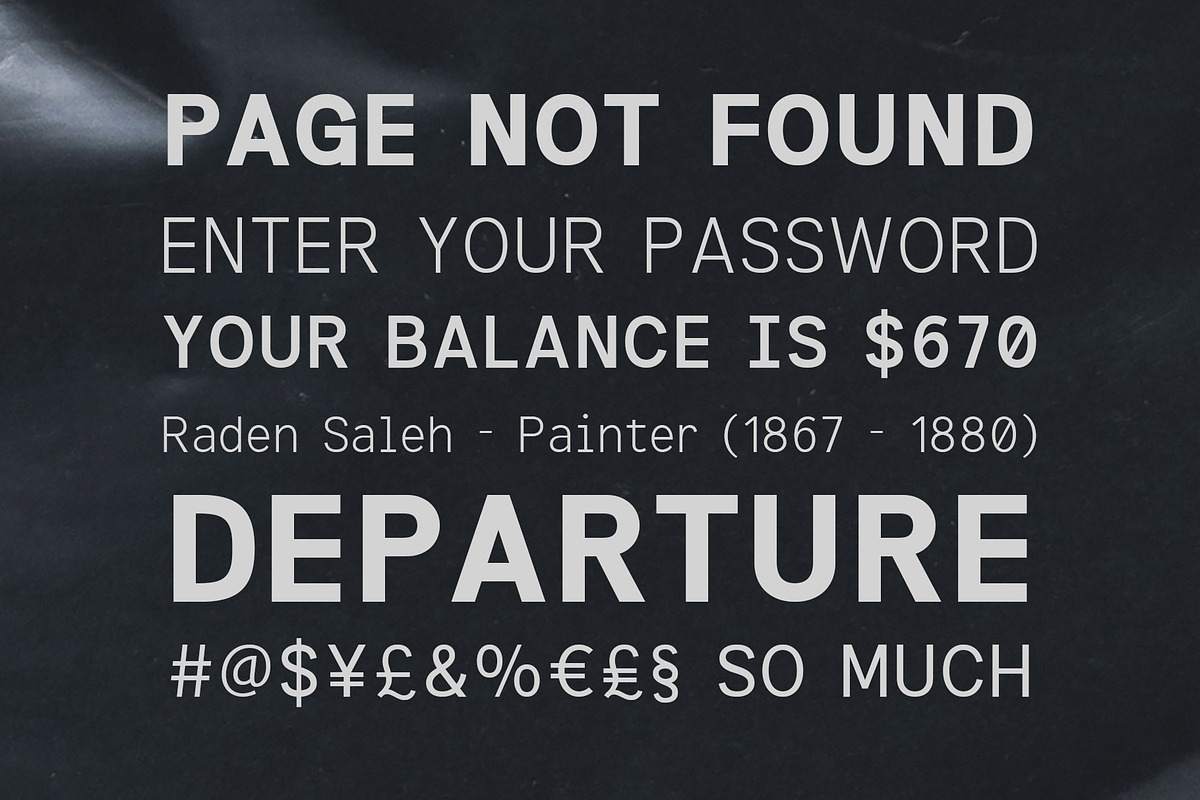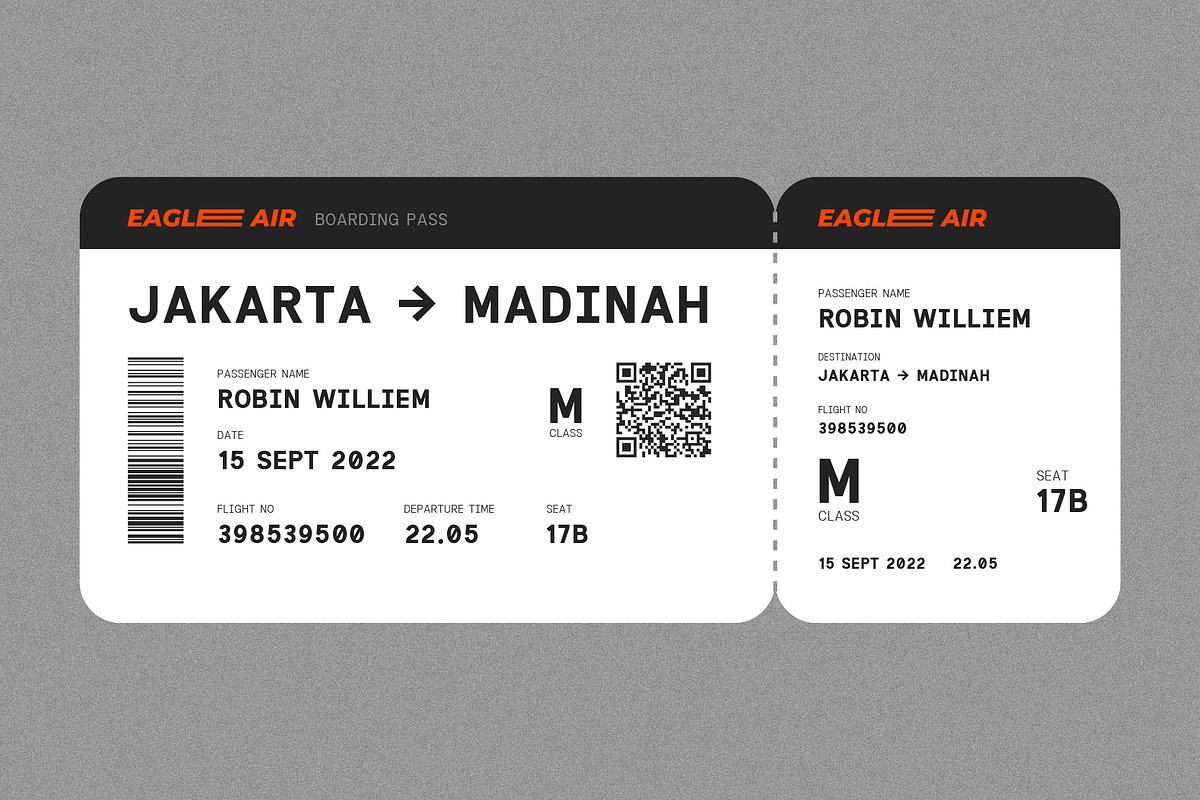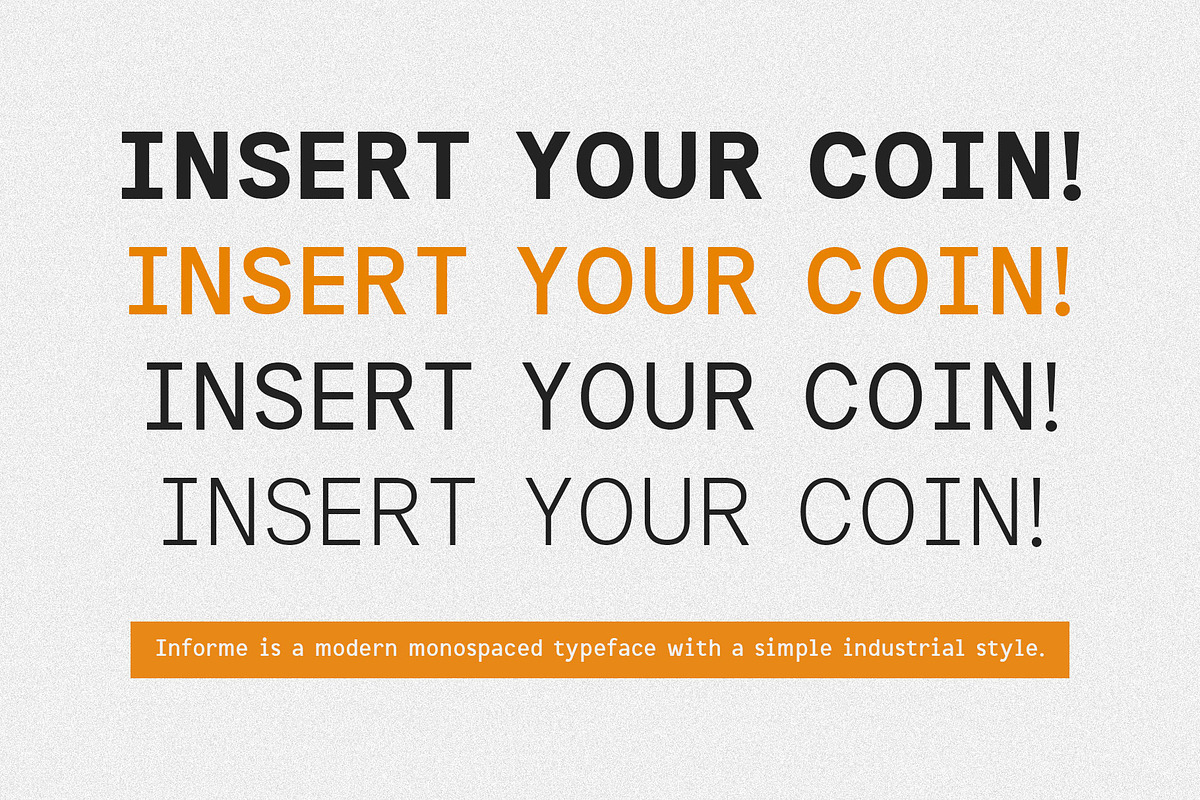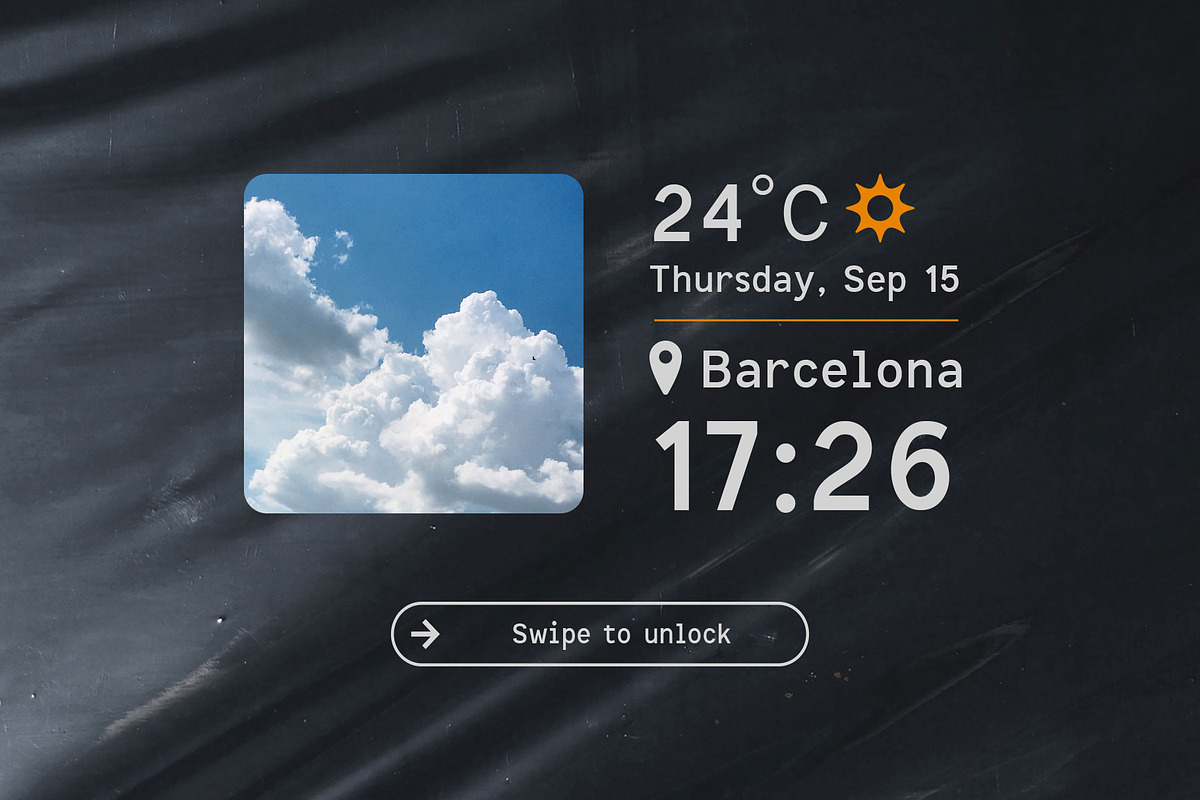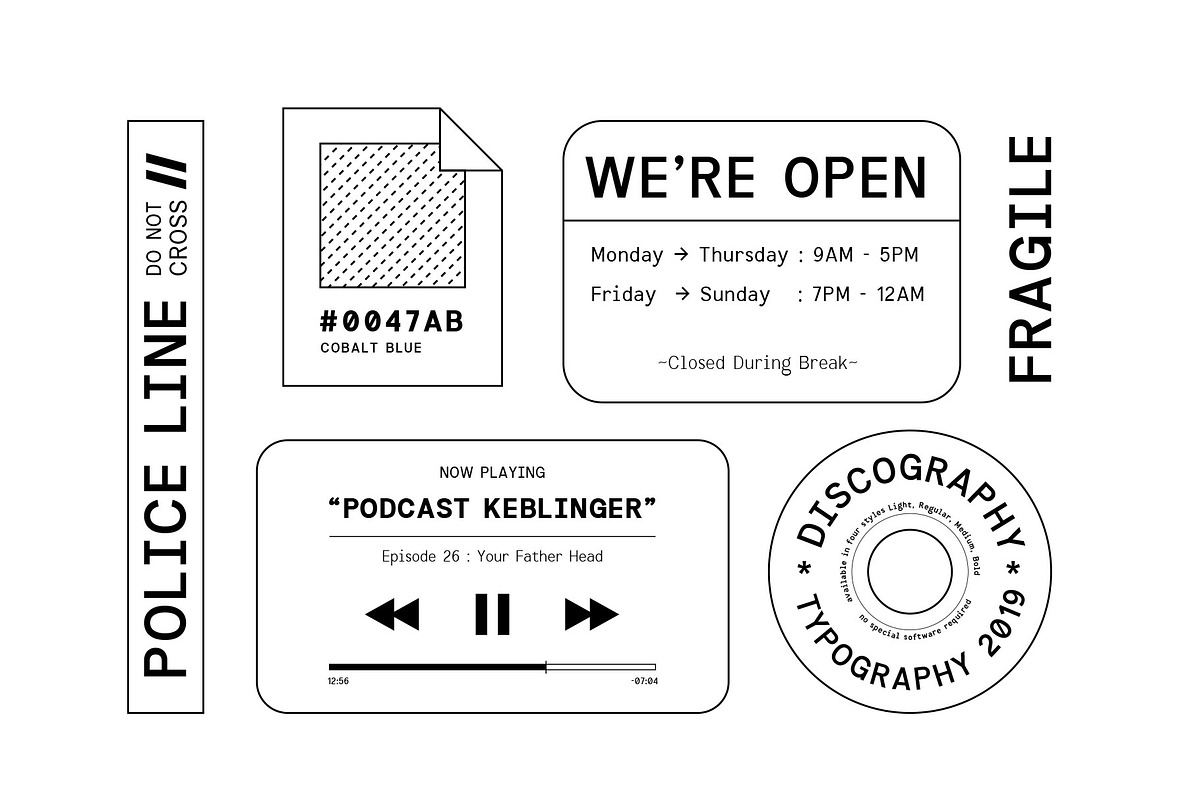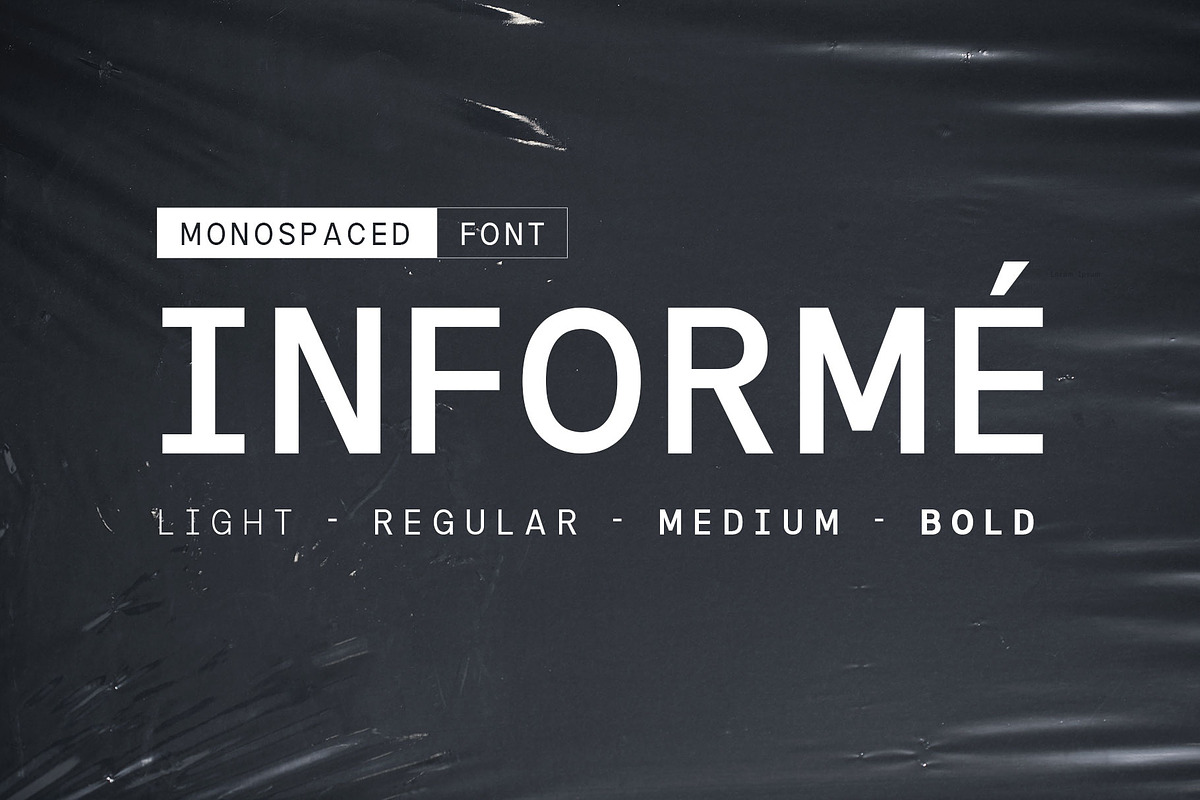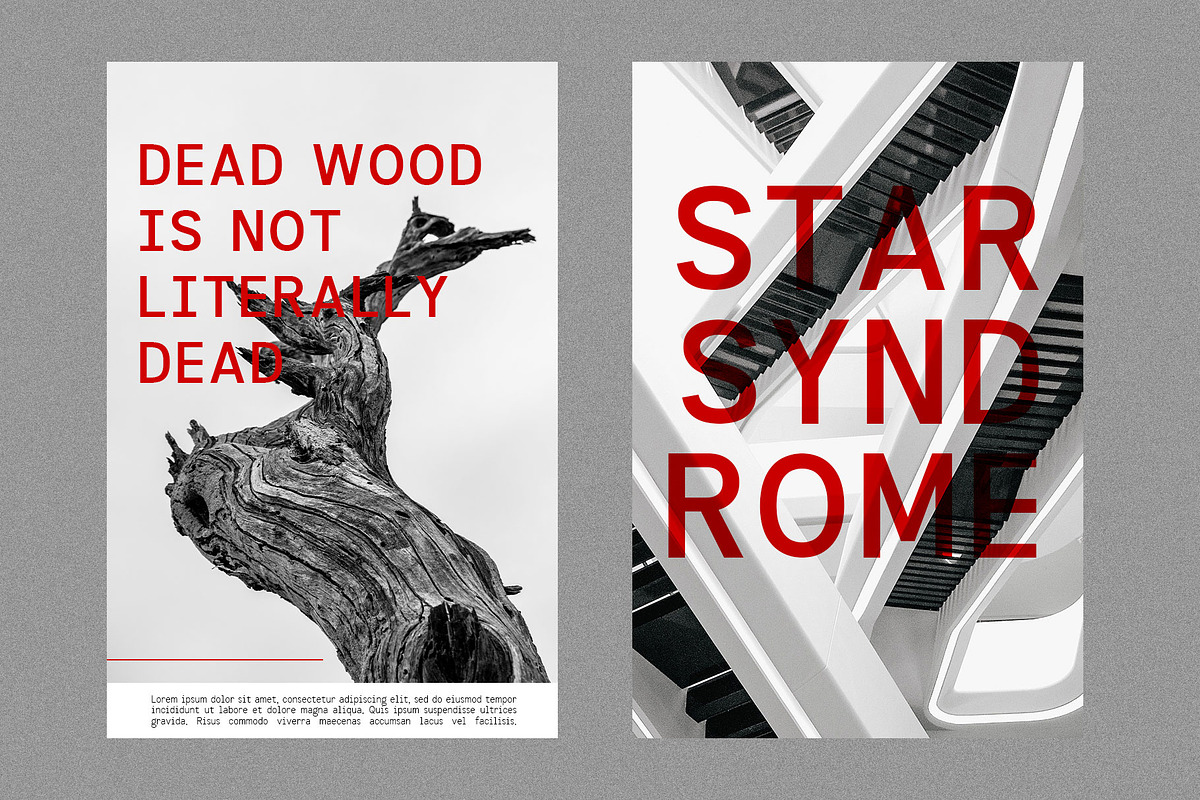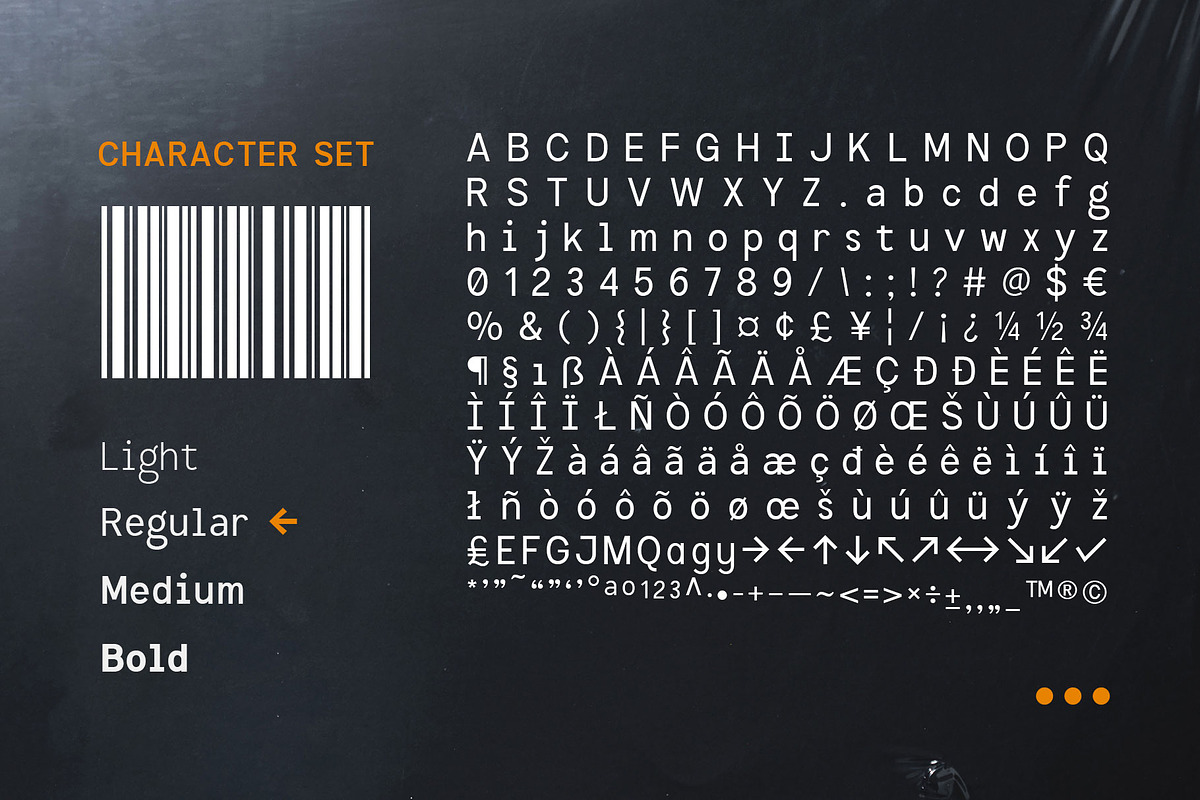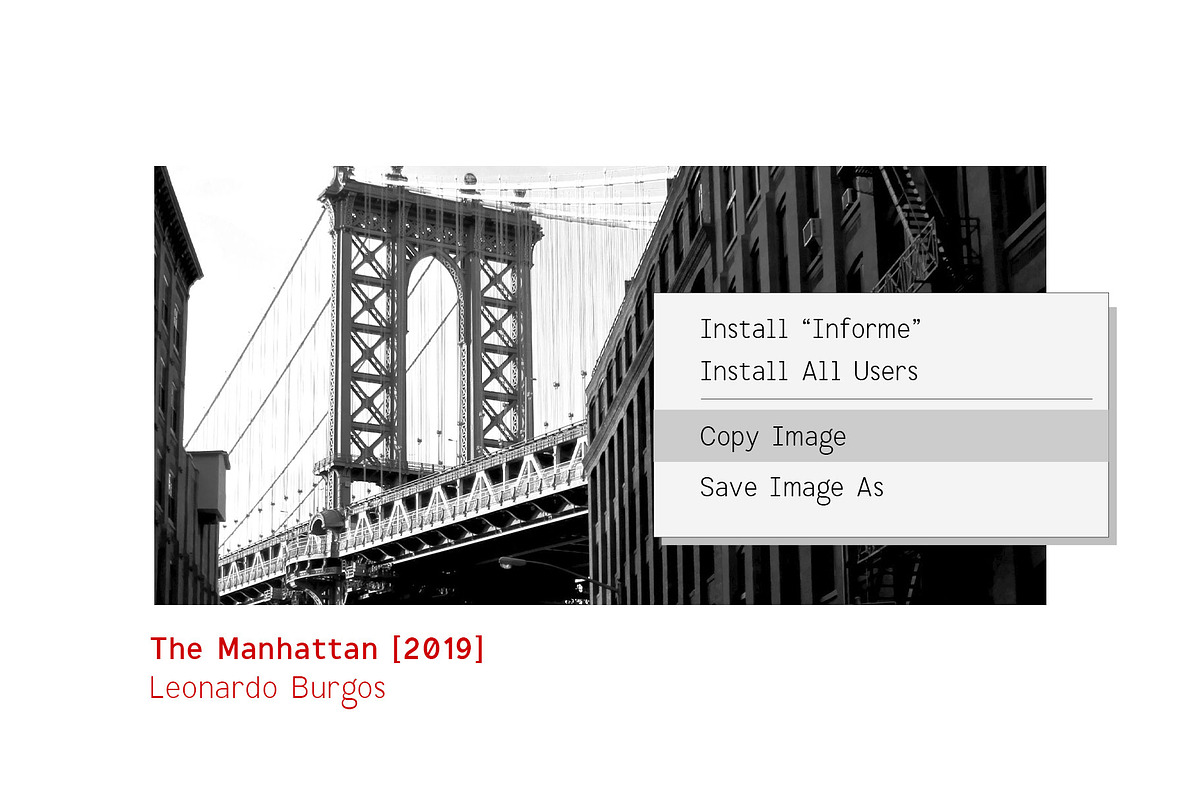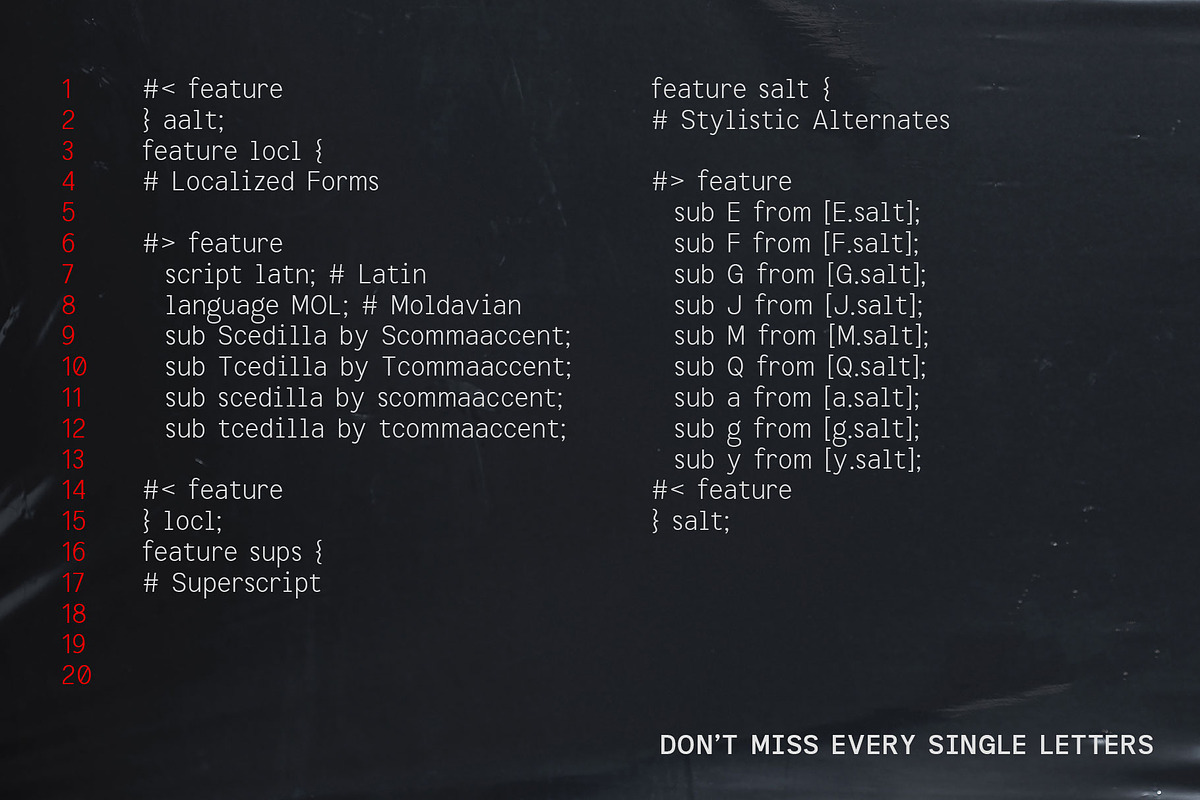
Informe - Monospaced
Informe is a modern monospaced typeface. Built with strong letter shapes, and industrial taste. This typeface was designed to read well in small and large sizes.
Informe is suitable for digital interface, simple coding, label, editorial, tickets, and more. Available in 4 styles that you can use for the headline, subheadline, tagline, and body text. Equipped with some alternates and multilingual support.